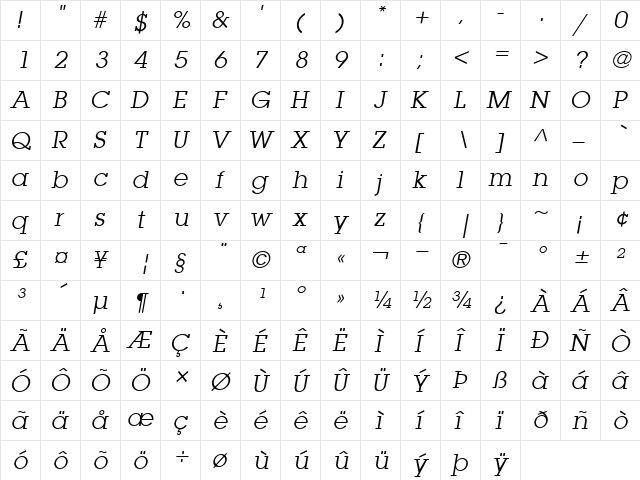
ITCLubalinGraph-Book BookItalic
Design Context for ITCLubalinGraph-Book Typeface
ITCLubalinGraph-Book is a composed and adaptable typeface that performs quietly and consistently across a wide range of design contexts. The dynamic lean of this cut emphasises speed and emphasis in any layout.
Pro Tip: Use ITCLubalinGraph-Book for emphasis, pull quotes, and subheadings where its slanted energy can add rhythm to the layout.